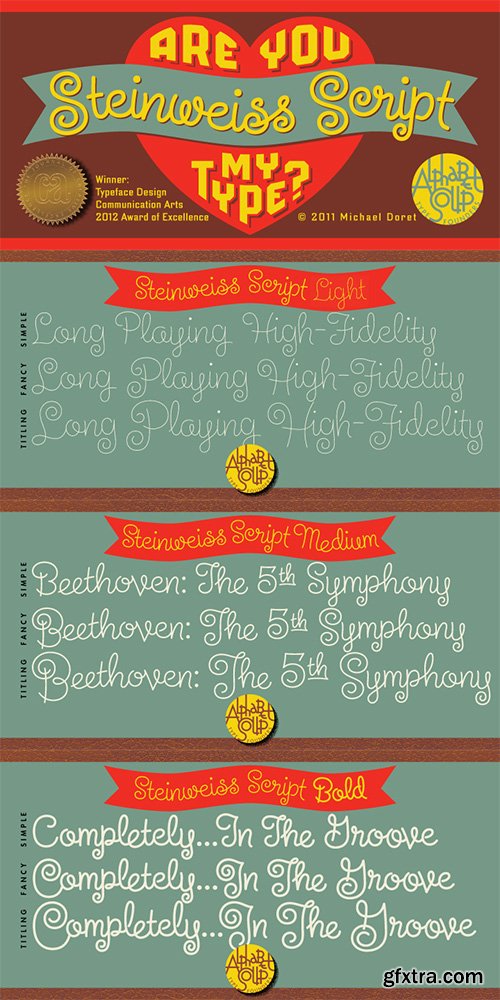
- Steinweiss Script began its journey towards daylight when Michael Doret was asked by Taschen Publishing to do cover lettering for the huge commemorative edition they were putting together on the work of Alex Steinweiss—“The Inventor of the Modern Album Cover” . The lettering was to be created to appear similar to the famous “Steinweiss Scrawl” the calligraphy that Steinweiss had used on countless album covers.While designing this piece of lettering, Michael realized that there was great potential for a font that was designed in the spirit of that famous “scrawl”. Through his contacts at Taschen Publishing, he was fortunate enough to be able to contact the Steinweiss family, and get the official Steinweiss approval to proceed with his “Steinweiss Script” project. Michael decided that in addition to giving the font his name as an homage, that he would donate a portion of the proceeds from the sale of this font to the man himself: Alex Steinweiss. Read more about the background of Steinweiss Script in Steven Heller’s article in Imprint.Steinweiss Script is a family of fonts in three weights: Light, Medium, and Bold. Additionally, within each weight there are three variations: Simple, Fancy, and Titling. These variations relate to the size/ratio of the caps to the lowercase, the complexity of those caps, and the size of the ascenders/descenders on the lowercase characters. These variations add usefulness to the font, making it accessible not just for headlines, but for longer passages of text as well. For a better understanding of its unique features please download The Steinweiss Script Users Guide from the Gallery section.PLEASE NOTE: the three Steinweiss Script fonts are cross-platform fonts which depend to some extent on certain advanced OpenType features, therefore they can be used to their full potential only with programs that support those features. When setting Steinweiss Script one should almost ALWAYS select the “Standard Ligatures" and “Contextual Alternates” buttons in your OpenType palette. See the “Read Me First!” file in the Gallery section.